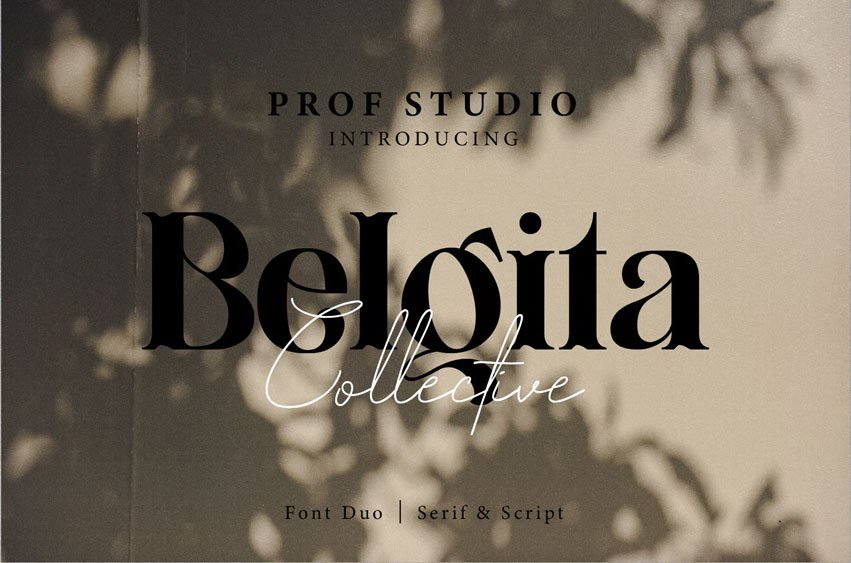
Belgita Font Regular, which can be interpreted as professional. We keep this font looking elegant, luxurious, premium, modern, stylish, catchy, and easy to use.
Belgita Script – is a great choice for watermark on photography, branding, wedding event, signature or signature logo design, quotes, album cover, magazine, business card, and many other design projects. Belgita Script here to take your work to a high level!!!